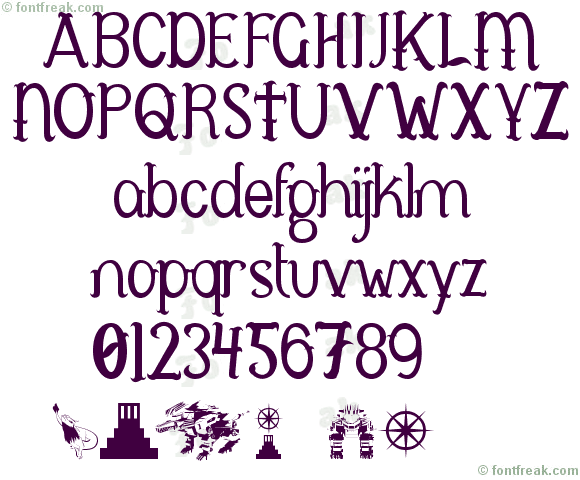
Antelope
About Antelope
The Antelope font, designed by Michael Muranaka in 2011, is a captivating display typeface that brings a unique flair to any project. As a decorative font, Antelope features soft, rounded edges and an elegant, artistic style that sets it apart from traditional typefaces. With its moderate stroke weight and balanced contrast, this font exudes a friendly yet sophisticated aesthetic, making it perfect for a range of creative applications.
Visually, Antelope showcases a playful character set, with whimsical curves and distinctive flourishes that add charm and personality. The spacing between letters is thoughtfully designed, allowing for legibility without compromising its artistic appeal. Decorative elements like the flowing terminals enhance the overall look, making it an excellent choice for projects that require a touch of creativity.
Antelope is particularly well-suited for wedding invitations, where its elegant design can evoke romance and sophistication. Additionally, it shines in restaurant menus, providing a warm and inviting feel that complements culinary delights. Graphic designers might also find it ideal for branding projects, logos, and promotional materials, as its unique character can help businesses stand out in competitive markets. Content creators and small business owners will appreciate the versatility of this font for digital graphics and social media posts, allowing them to convey their message with style.